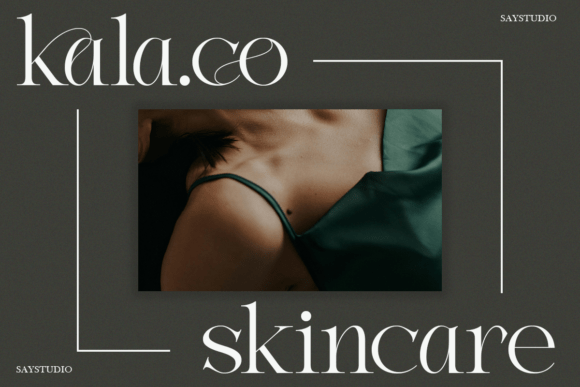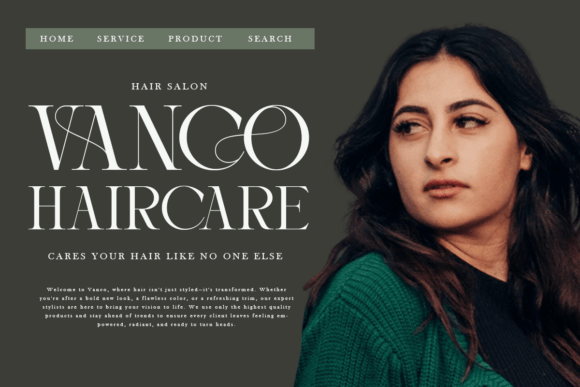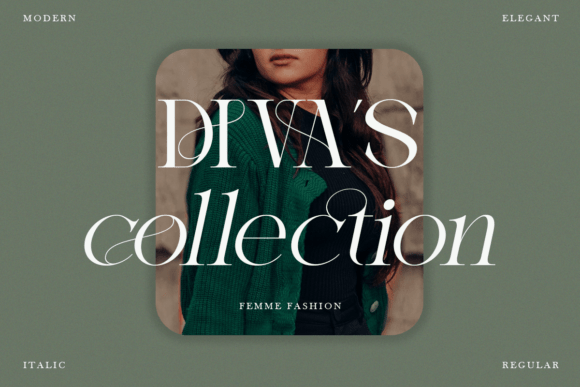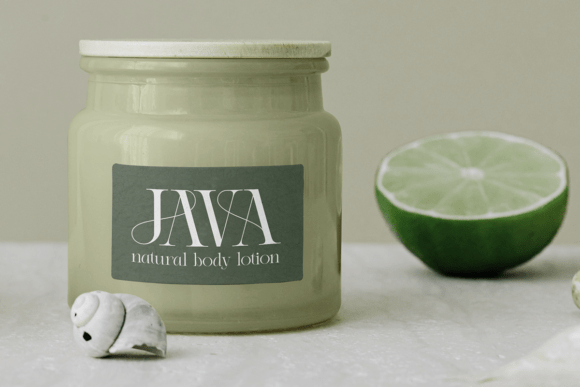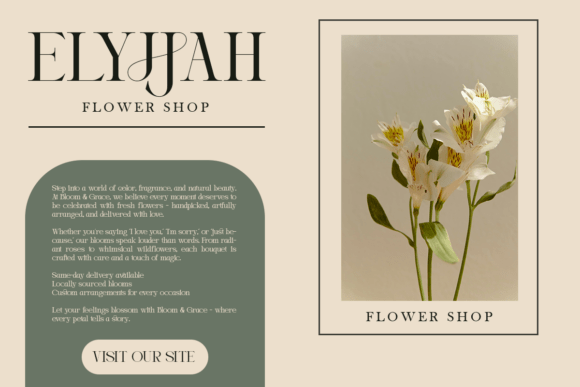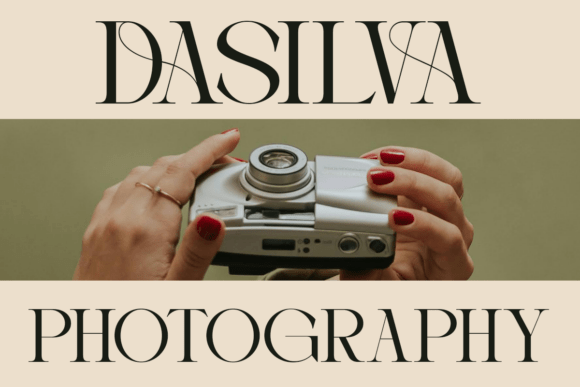
Introduction to Joilway Font
Introducing Joilway, an elegant serif ligature font.
Available in Italic and Regular styles, Joilway is perfect for luxury branding, editorial designs, invitations, and high-end typography projects With its refined ligatures and sophisticated character set, this font enhances any design with a premium, professional look.
Key Features of Joilway Font
Why Choose Joilway Font?